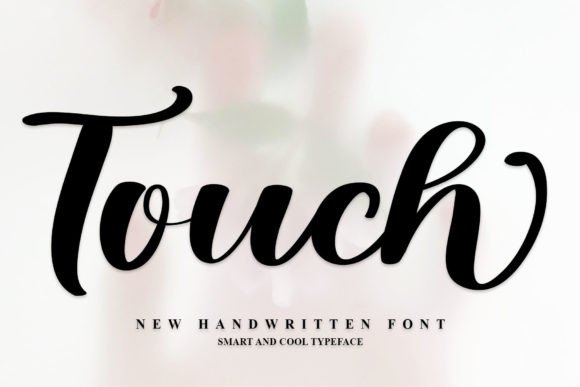
Dive into the world of Touch Font, a captivating handwritten font that dances across designs with its playful and quirky personality. Created by Inermedia STUDIO, this script font exudes a sense of whimsy and individuality like no other. Its irregular and playful letterforms create a delightful visual rhythm, perfect for designs seeking a touch of uniqueness.
Imagine your business cards adorned with the charming strokes of Touch Font. Its natural, handwritten style adds a personal touch, making each card a unique extension of your brand. The irregular letterforms add a touch of intrigue, inviting recipients to explore the depths of your creativity.
In the realm of branding, Touch Font reigns supreme. Its playful nature adds a touch of lightheartedness, while its legible forms ensure clarity and professionalism. Create logos, social media graphics, and marketing materials that pop with personality. Let Touch Font become your muse, guiding you towards designs that resonate with your audience.
Step into the world of invitations and let Touch Font orchestrate an enchanting experience. Imagine wedding invitations penned in the elegant curves of this font, exuding romance and sophistication. Its irregular forms add a touch of artistry, transforming each invitation into a cherished keepsake.
Unleash the potential of Touch Font in your personal projects too. Craft heartfelt greeting cards that carry your warmest wishes in the most charming way. Create posters and flyers that burst with life, capturing attention with their playful letterforms. Let Touch Font be your companion in expressing yourself creatively, transforming your ideas into tangible works of art.